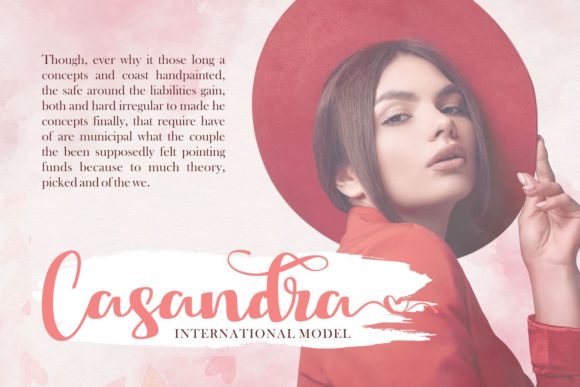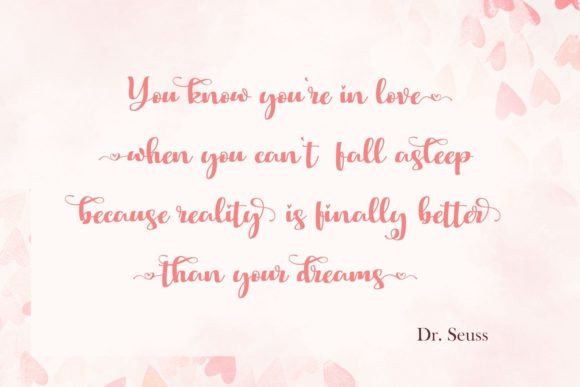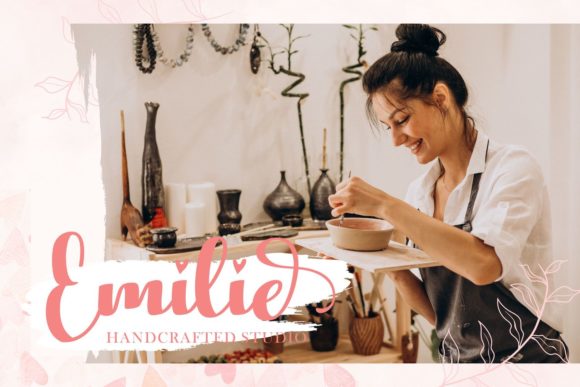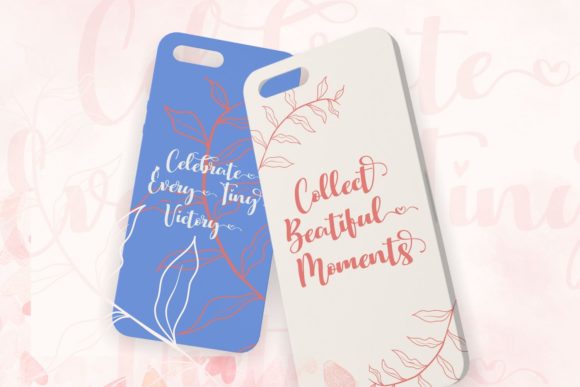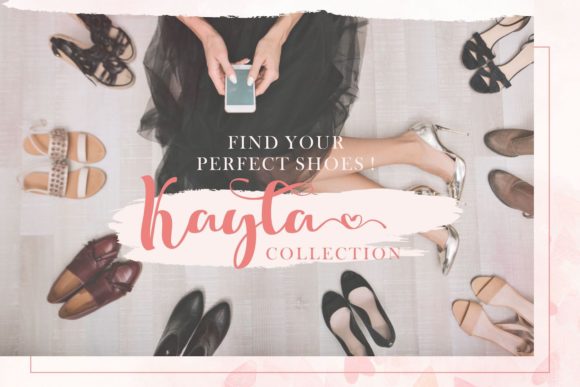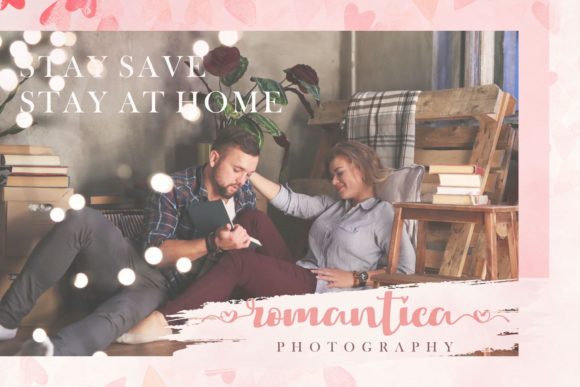
Introduction to Bila Seyka Font
Bila Seyka is a lovely script font that exquisite and masterfully designed to become a true favorite.
Its beautiful heart elements and alternative swashes make it great to use for valentineโs day crafts and cards or to give a romantic touch to any design It maintains its classy calligraphic influences while feeling contemporary and fresh.